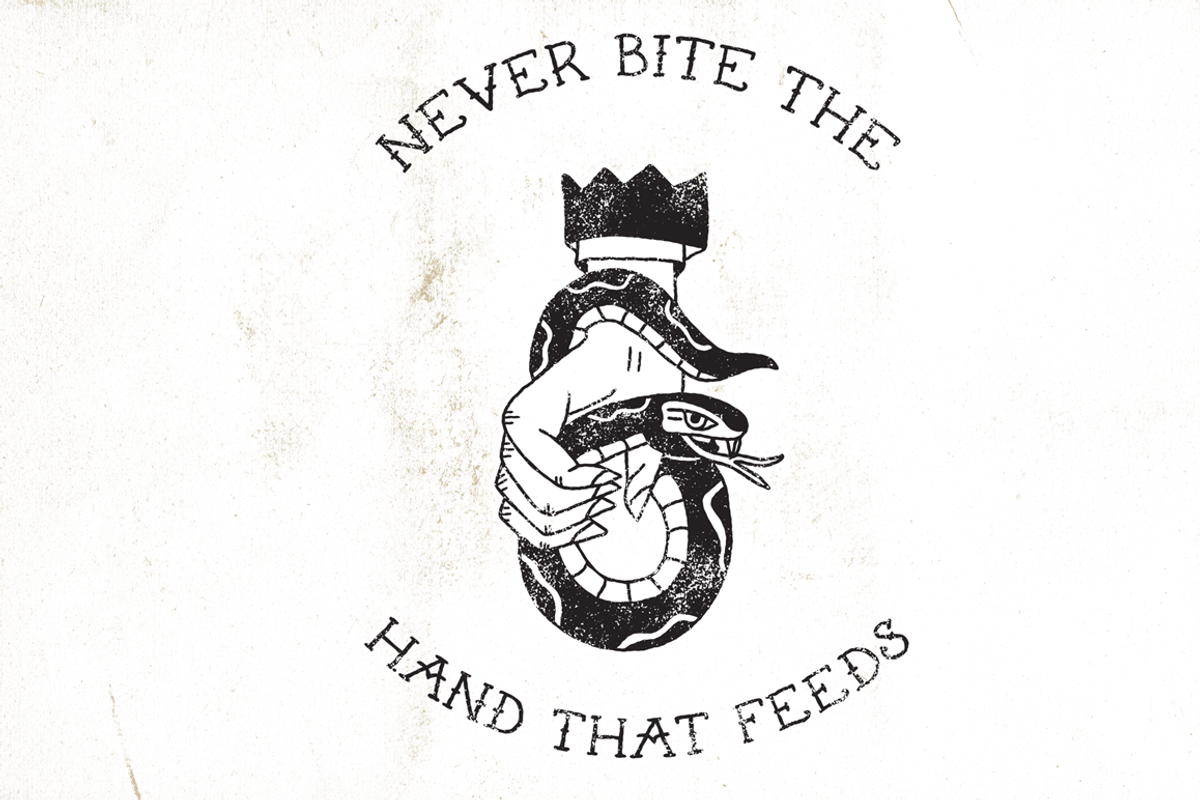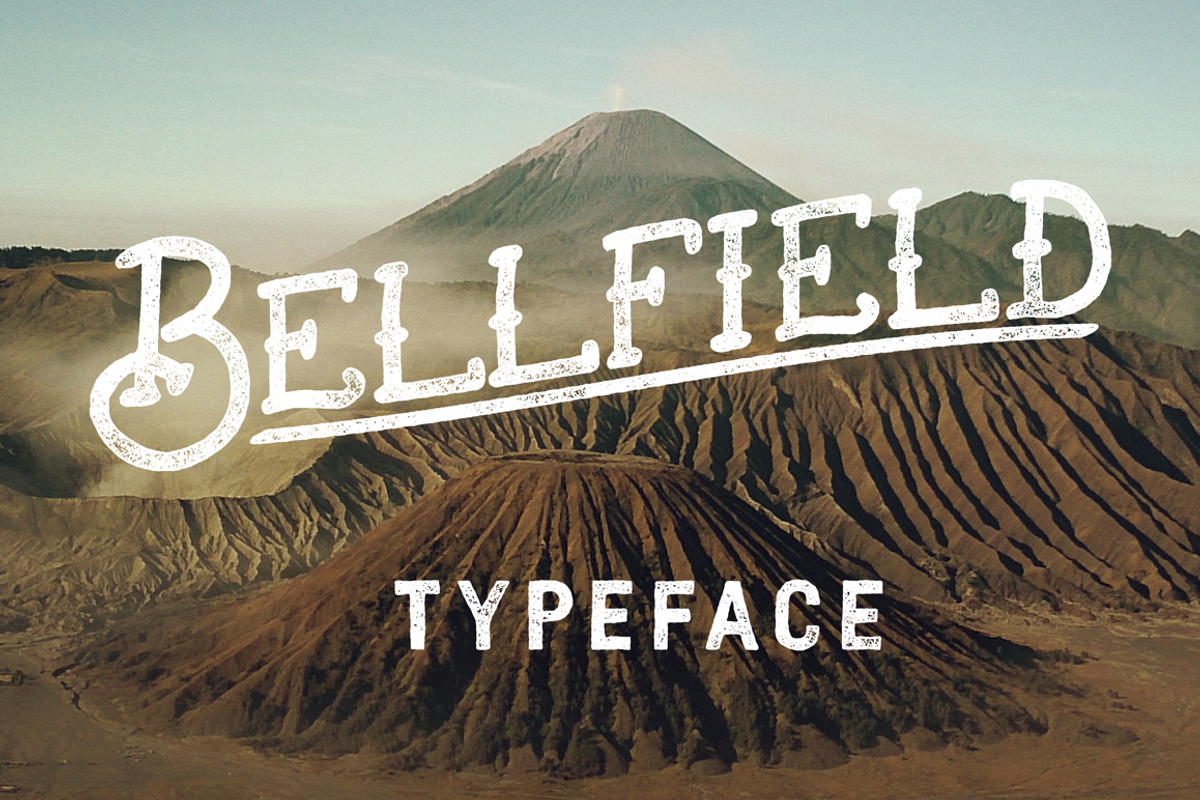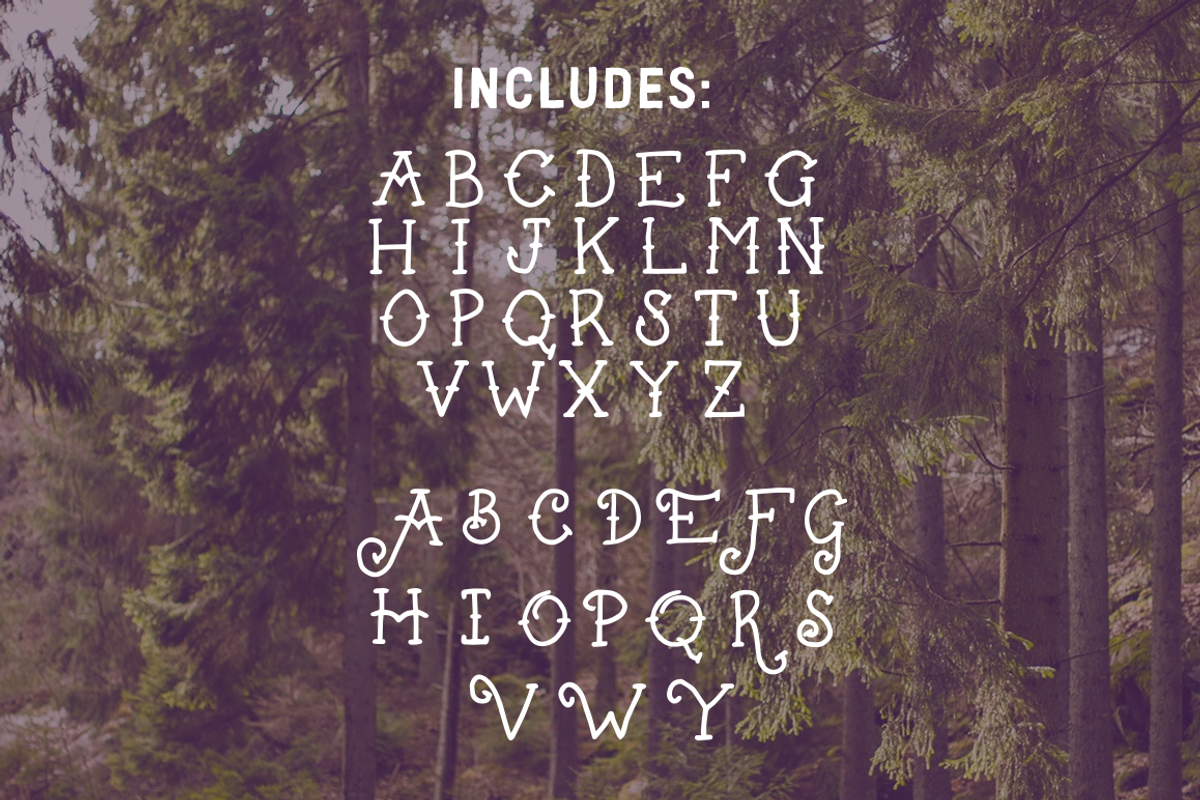
Bellfield - Tattoo Typeface (INTRO)
Bellfield is a vintage, hand drawn typeface inspired by traditional American tattoo designs from the 1970s and onward. It's perfect for adding some personality and character to your designs!
The typeface includes the full alphabet in all caps, along with some alternate capital letters to spice up your designs! If there is enough interest I will happily add in some symbols, numbers and punctuation, so let me know!